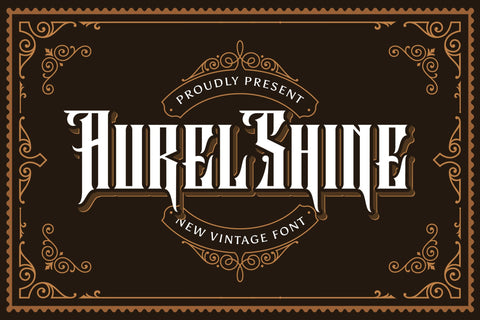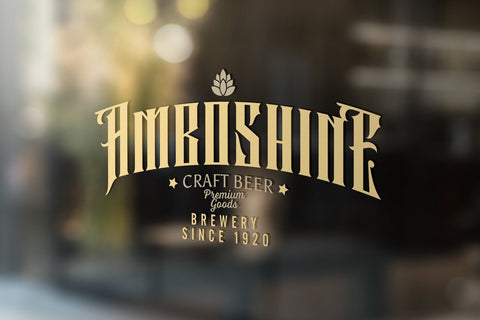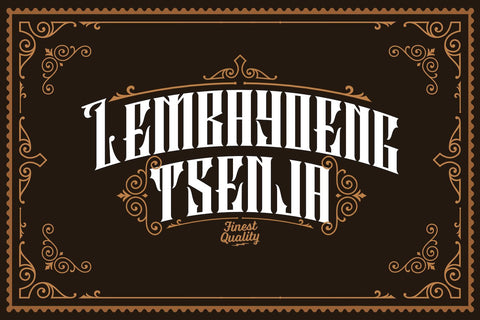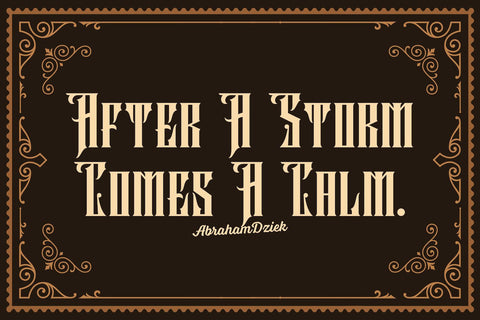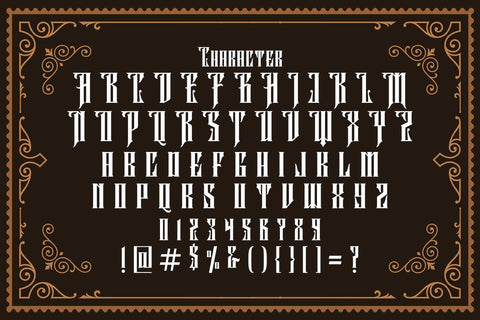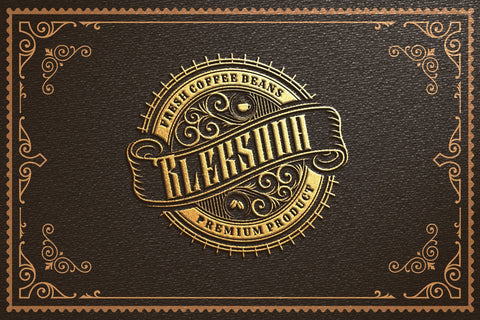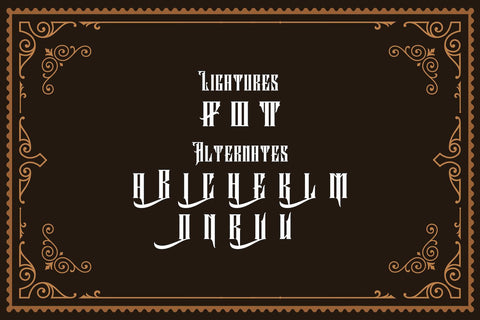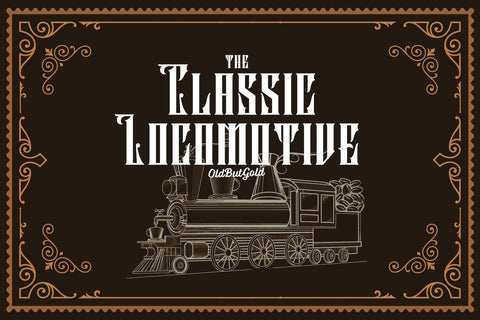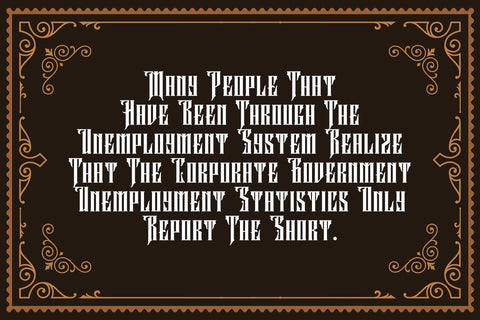
Aurel Shine - Blackletter Font
Introducing Aurel Shine - Blackletter Font
Aurel Shine is an incredibly authentic and daring blackletter font. Add this font to your favorite creative ideas and notice how it makes them stand out!